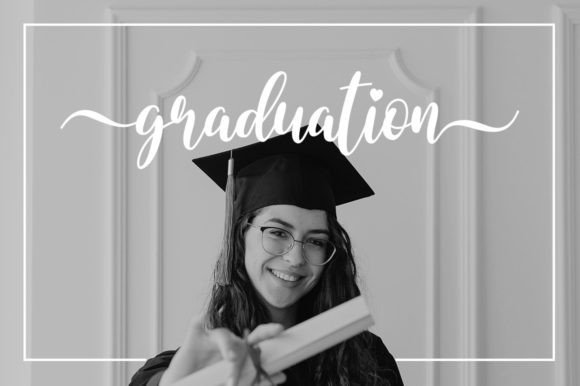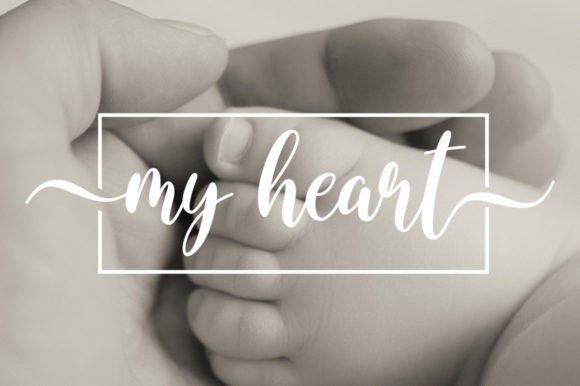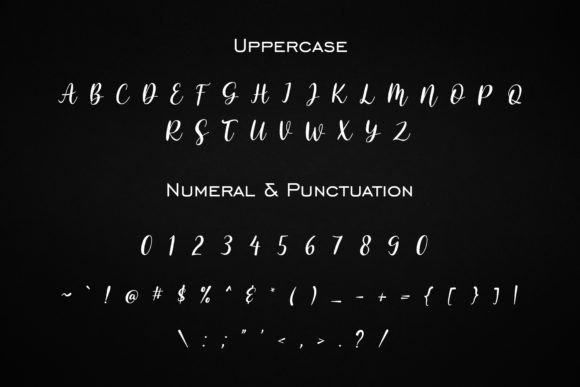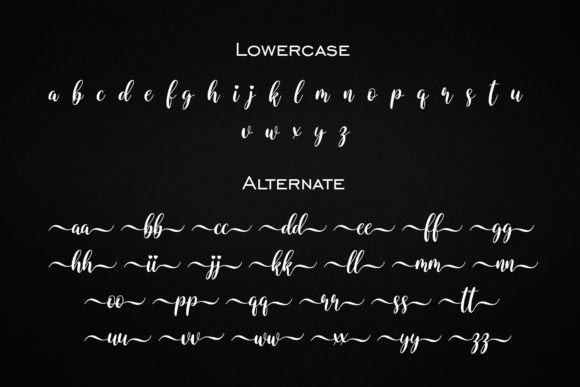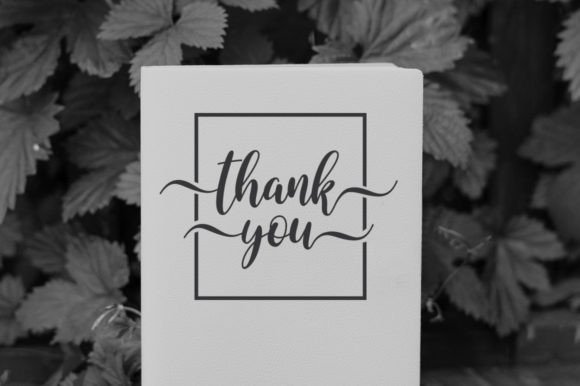
Loving Font
About Loving Font
“Loving is a dazzling script font that captivates with its neatly crafted and highly detailed design. Whatever the topic, this font stands out as a wonderful asset to your font library, with the potential to enhance any creation.
The charm of Loving lies in its script style, where each letter is meticulously crafted to create a dazzling and elegant aesthetic. This font becomes a versatile choice for designers seeking a refined and detailed script for a variety of creative applications.
Whether you’re working on invitations, branding, or any other design project, Loving stands out as a font that elevates the overall aesthetic. Its detailed and elegant script adds a touch of sophistication to your text, making it visually appealing.
Imagine Loving enhancing your projects, adding a dazzling and highly detailed touch to your text. Its script style becomes the defining element that sets your designs apart, creating a visual experience that resonates with elegance and charm.
As you explore the nuances of Loving, you’ll discover its potential to transform ordinary projects into visually delightful expressions. Let it be the font that brings a touch of refinement to your creative vision, making your designs stand out with a dazzling and detailed script aesthetic. With Loving, every stroke becomes a brushstroke of beauty, and its PUA encoding ensures easy access to all glyphs and swashes, providing creative flexibility for your designs.”